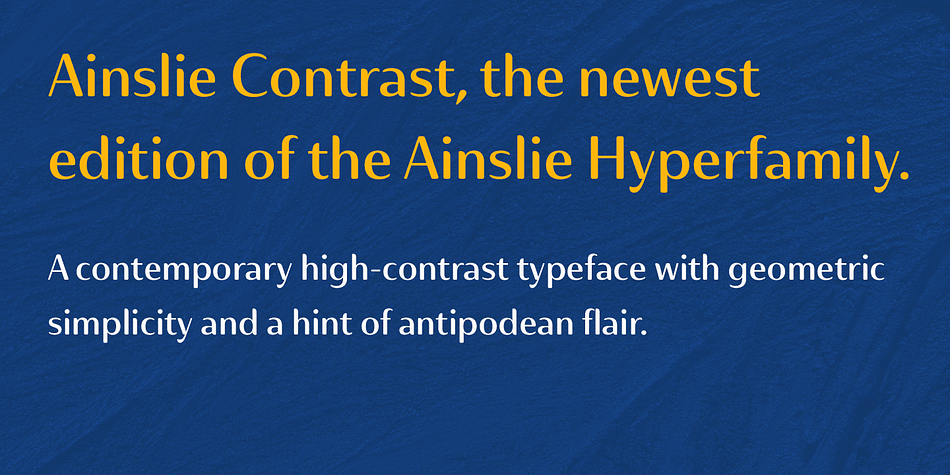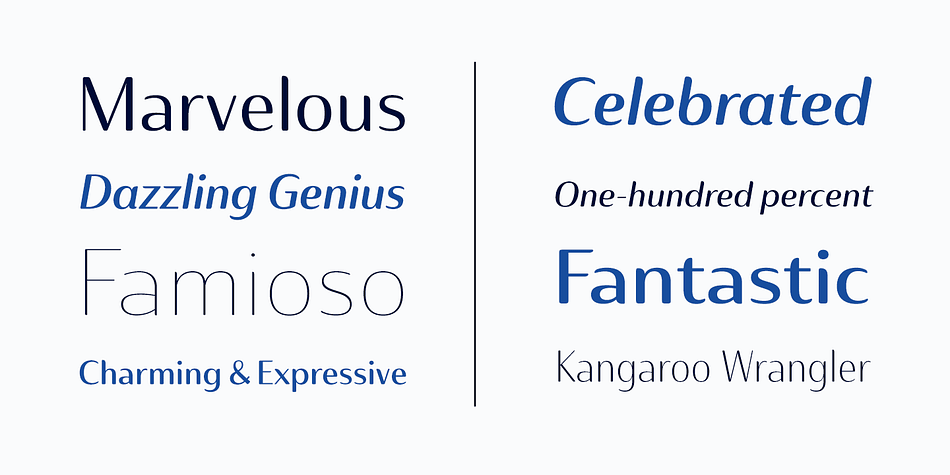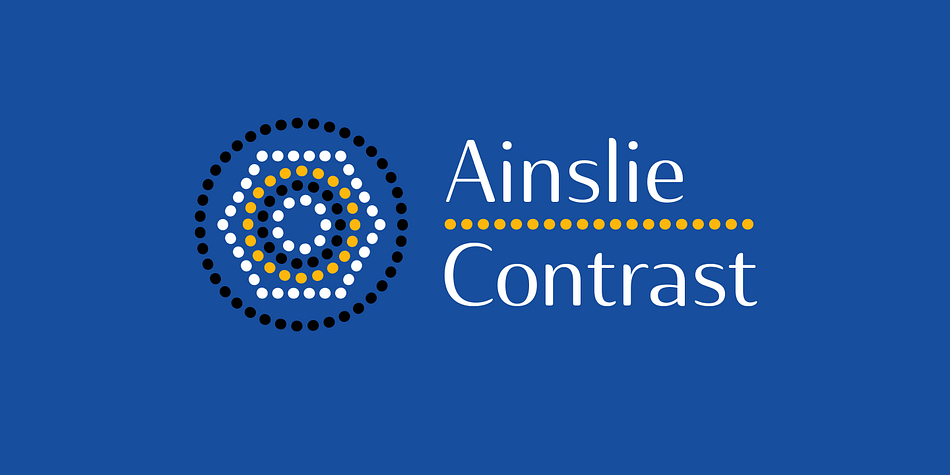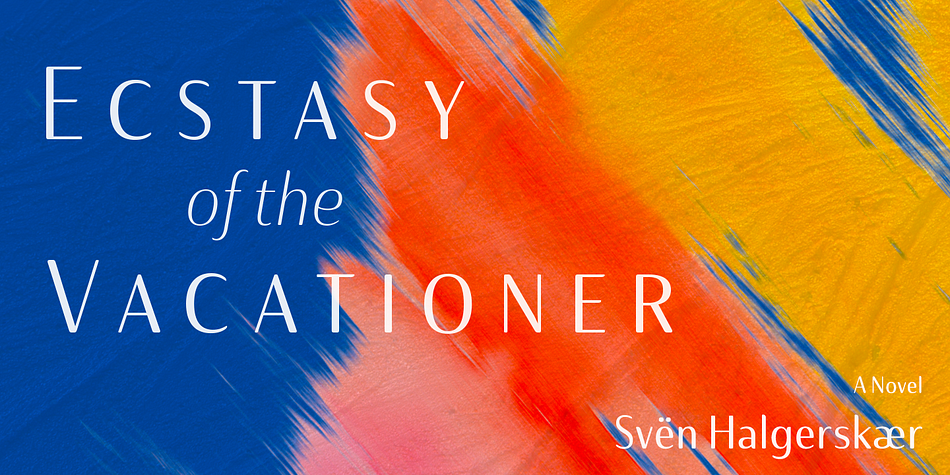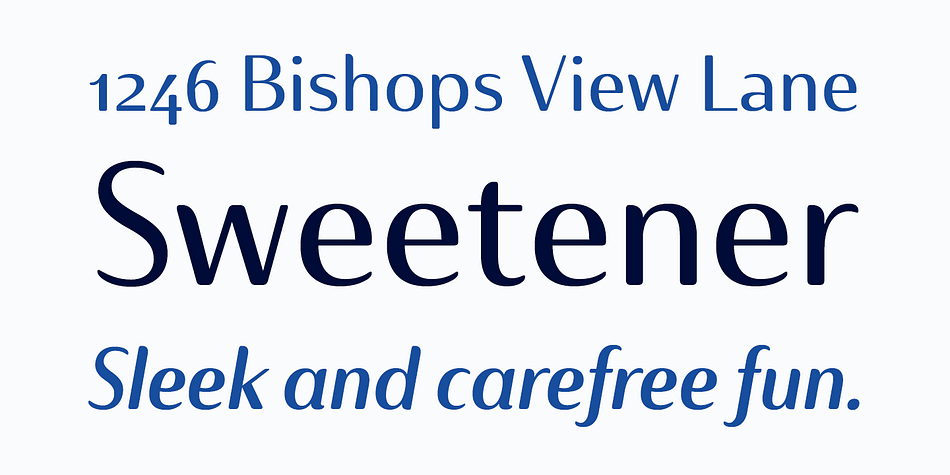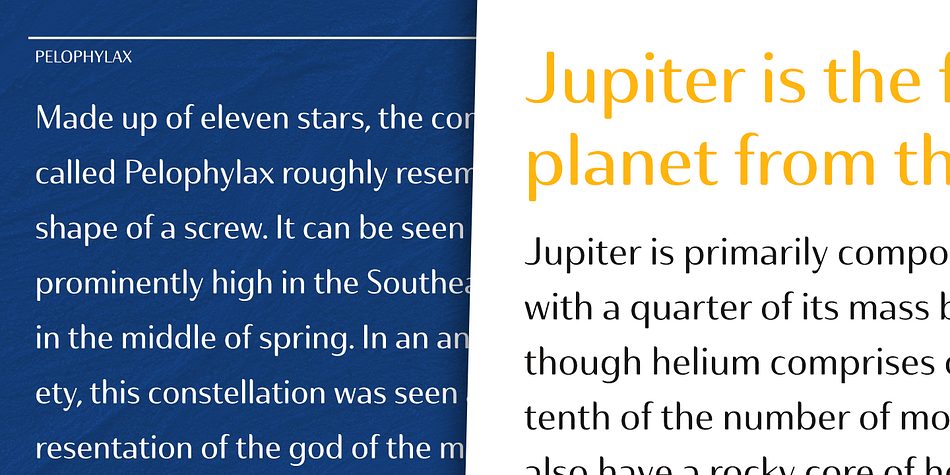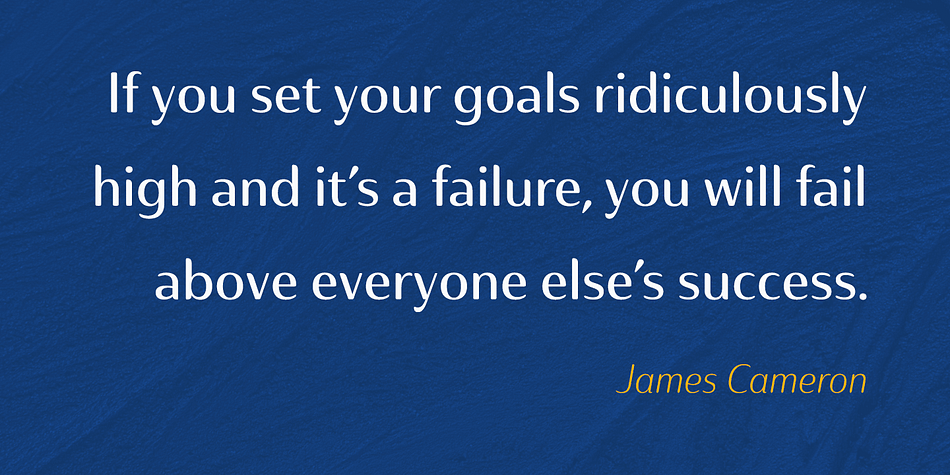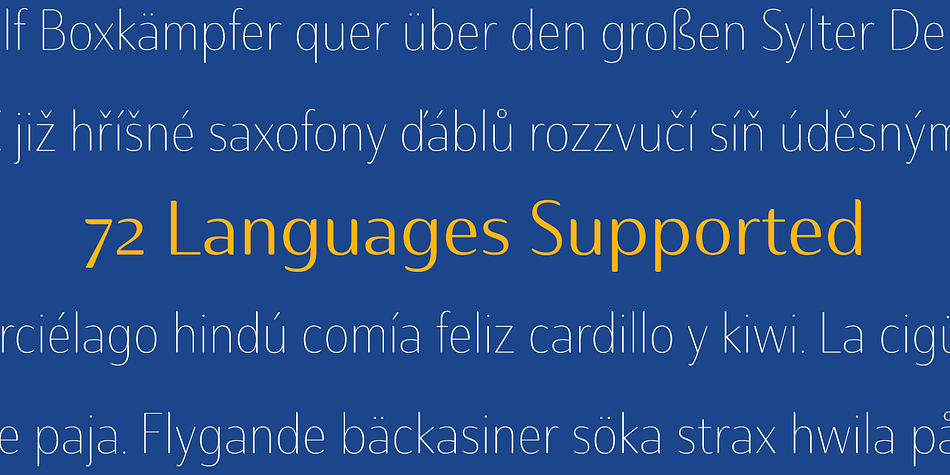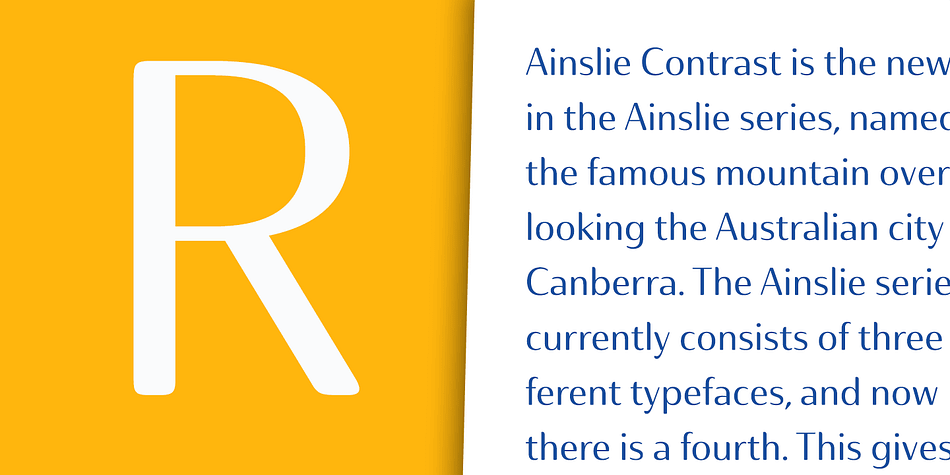
Designed by Jeremy Dooley, Ainslie Contrast is a display sans and sans serif font family. This typeface has forty-two styles and was published by Insigne Design.
Ainslie Contrast is the newest in the Ainslie series, named for the famous mountain overlooking the Australian city of Canberra. The Ainslie series currently consists of four typefaces. The Ainslie design is very unique and originally began life as a semi-serif. Also available are a normalized sans serif and slab variants.
This contemporary typeface’s high contrast catches the eye. The design flows with ease and sophistication. There are a mix of influences from Australia, which gives it a unique flavor. The original Ainslie was designed for the Canberra Australia Centennial Typeface Competition and named for the mountain that overlooks the beautiful capital city of Australia. Ainslie takes Canberra’s distinct geometric design and blends it with the organic, flowing essence of aboriginal art and the smooth aerodynamic design of the boomerang.
The typeface includes a multitude of alternates that can be accessed in any OpenType application. There are swashes and other details such as small caps, alternative titling caps and swash alternates.
If you’re searching for a contemporary high contrast typeface with geometric simplicity and a hint of antipodean flair, Ainslie Contrast is fair dinkum.